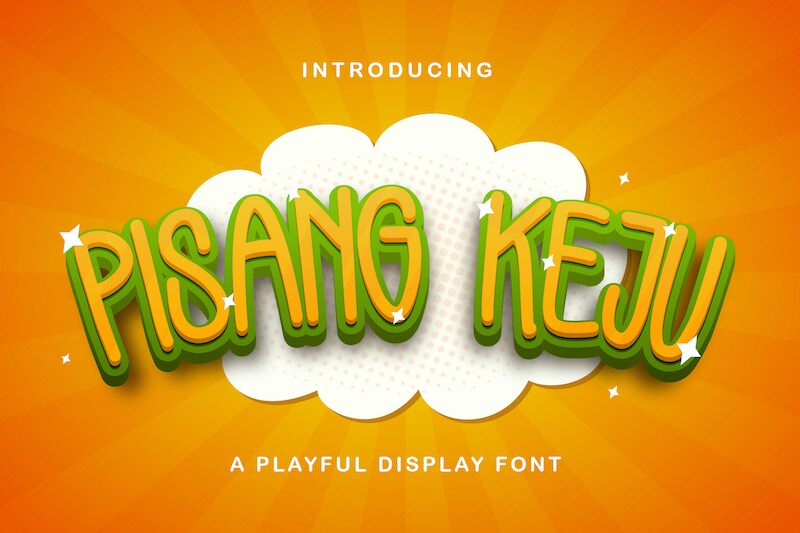
PISANG KEJU is a light, narrow, and playful handwritten font designed by Virgiawan Listanto. It's perfect for creating fun logos, posters, clothing designs, and more. Let your creative ideas sparkle with this unique font!